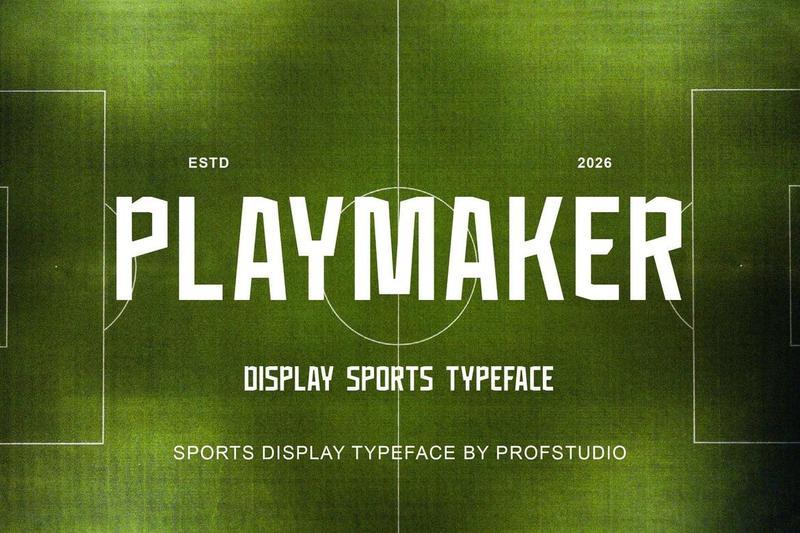
Playmaker – Display Sports Typeface HLE9UE9
**Introducing**
Playmaker – Display Sports Typeface
Playmaker is a display font that can help display messages in the designs you create. With its bold and modern and special stripes number character, it is suitable for you to use posters, flyers, magazine covers, etc.